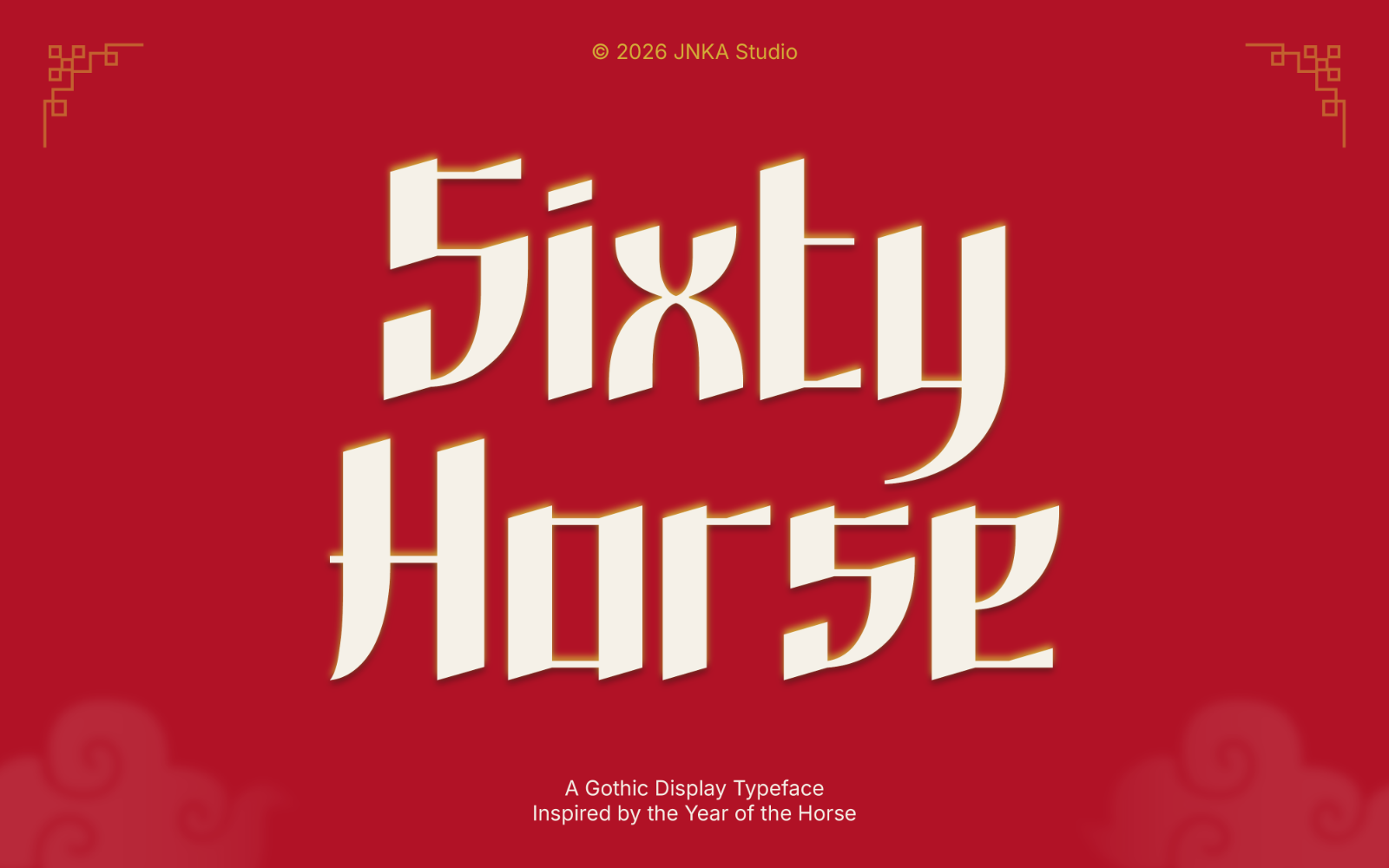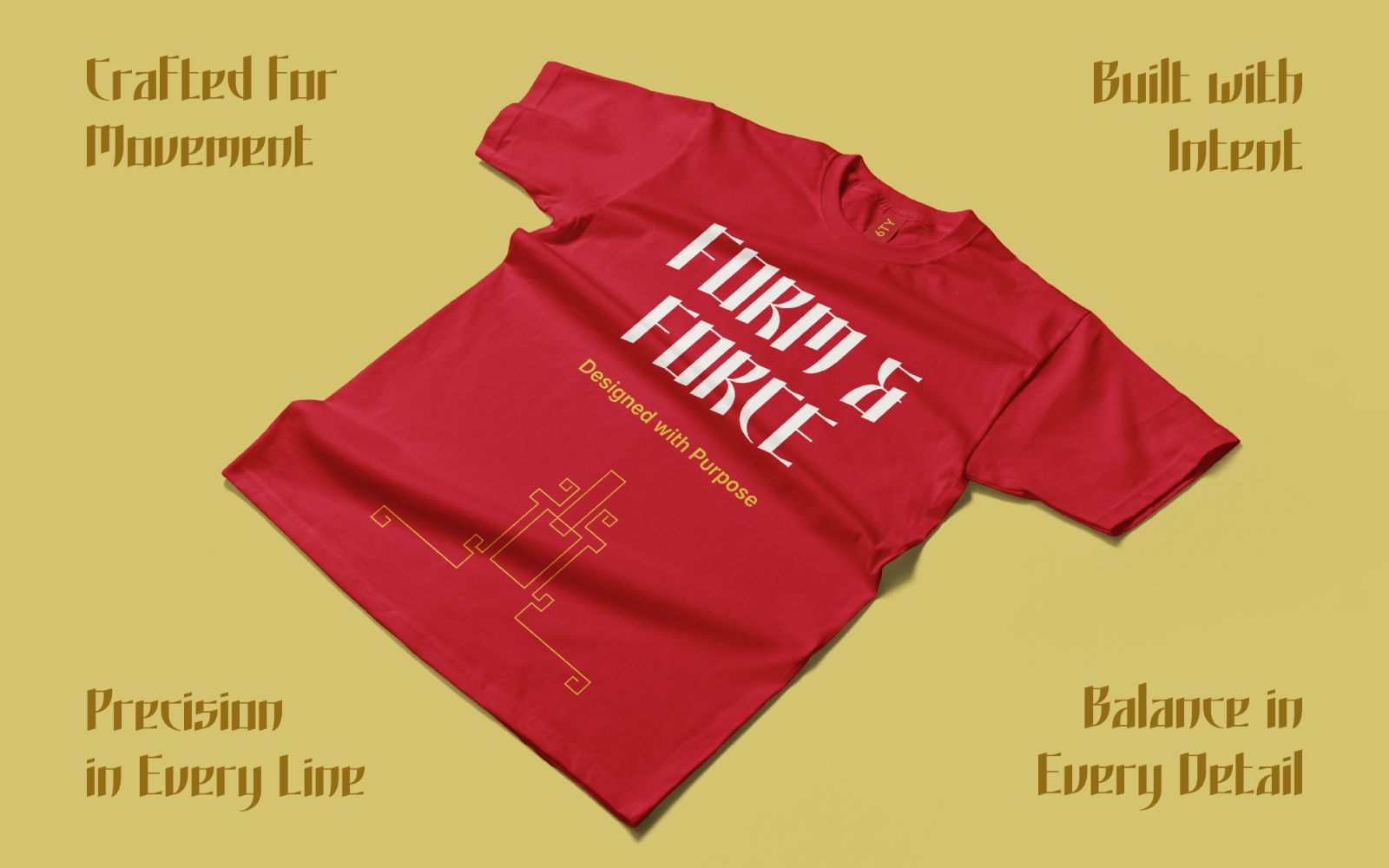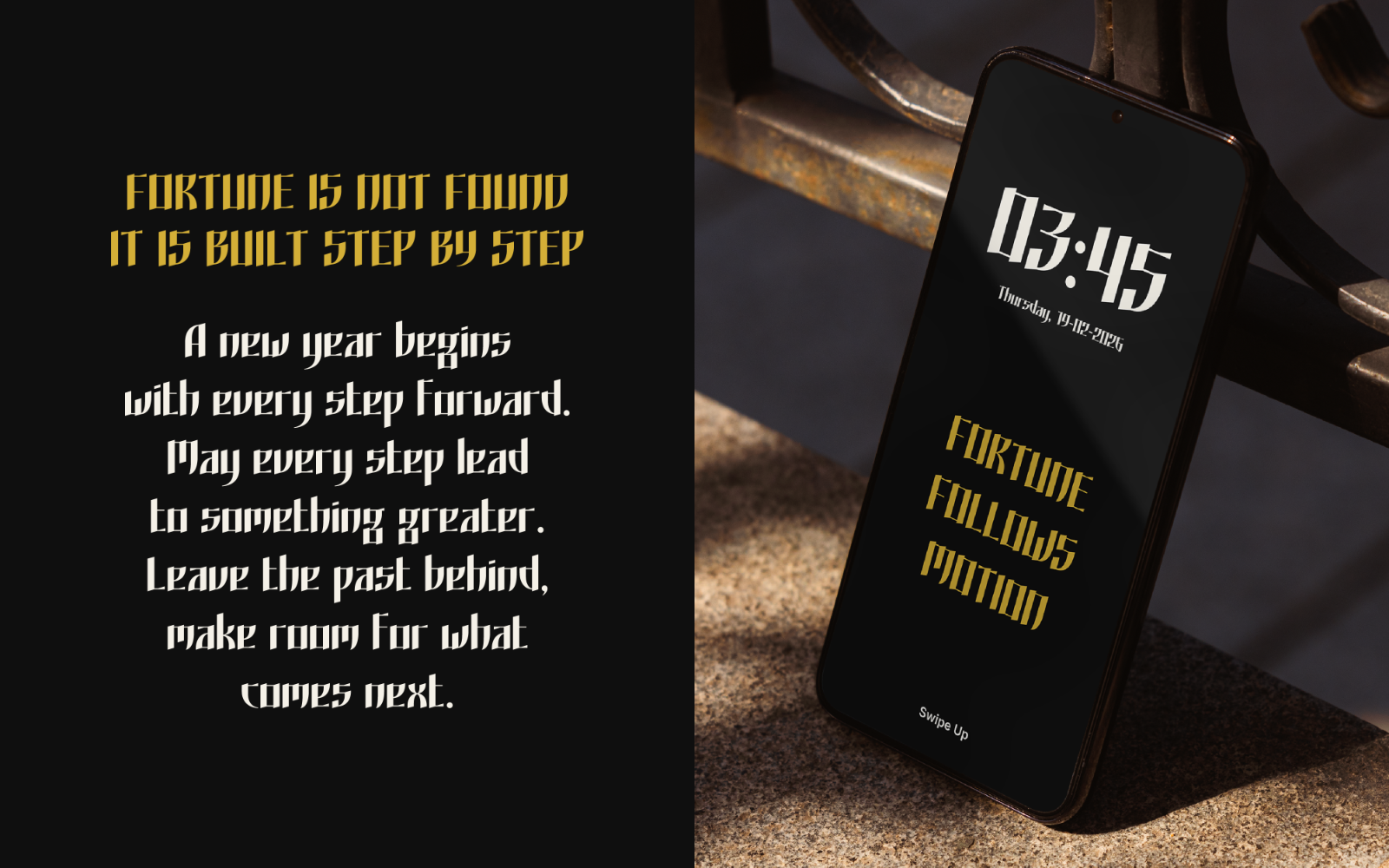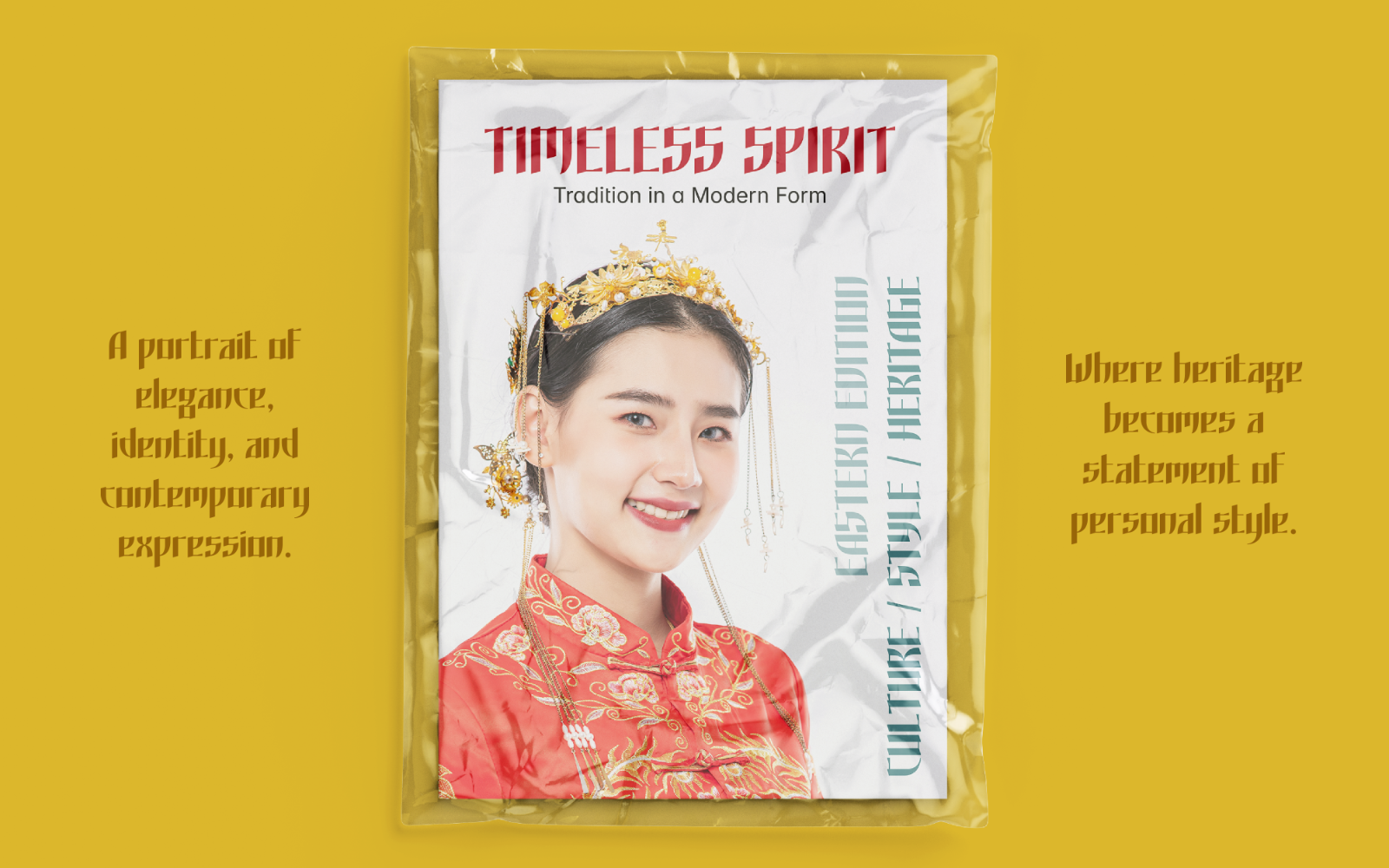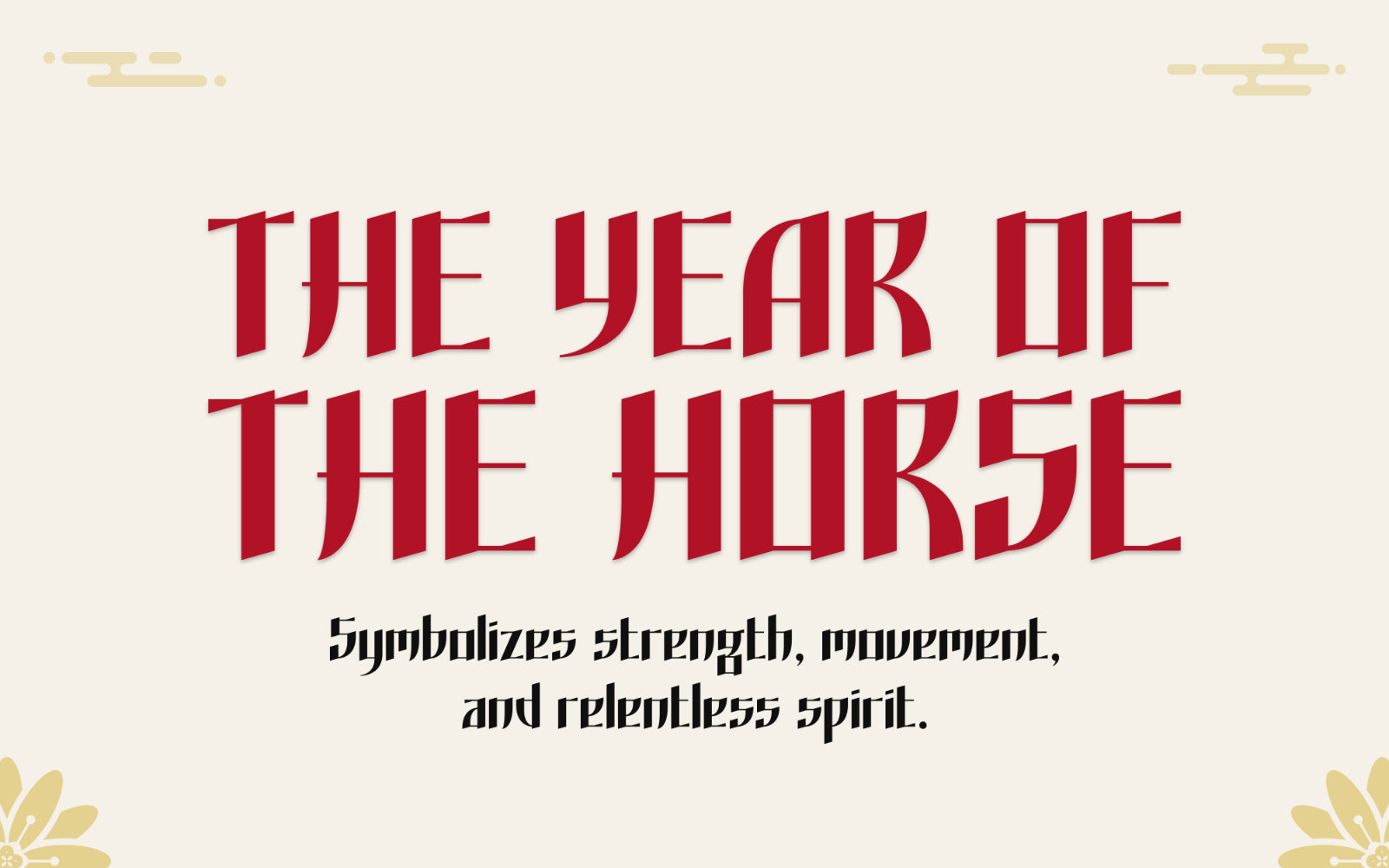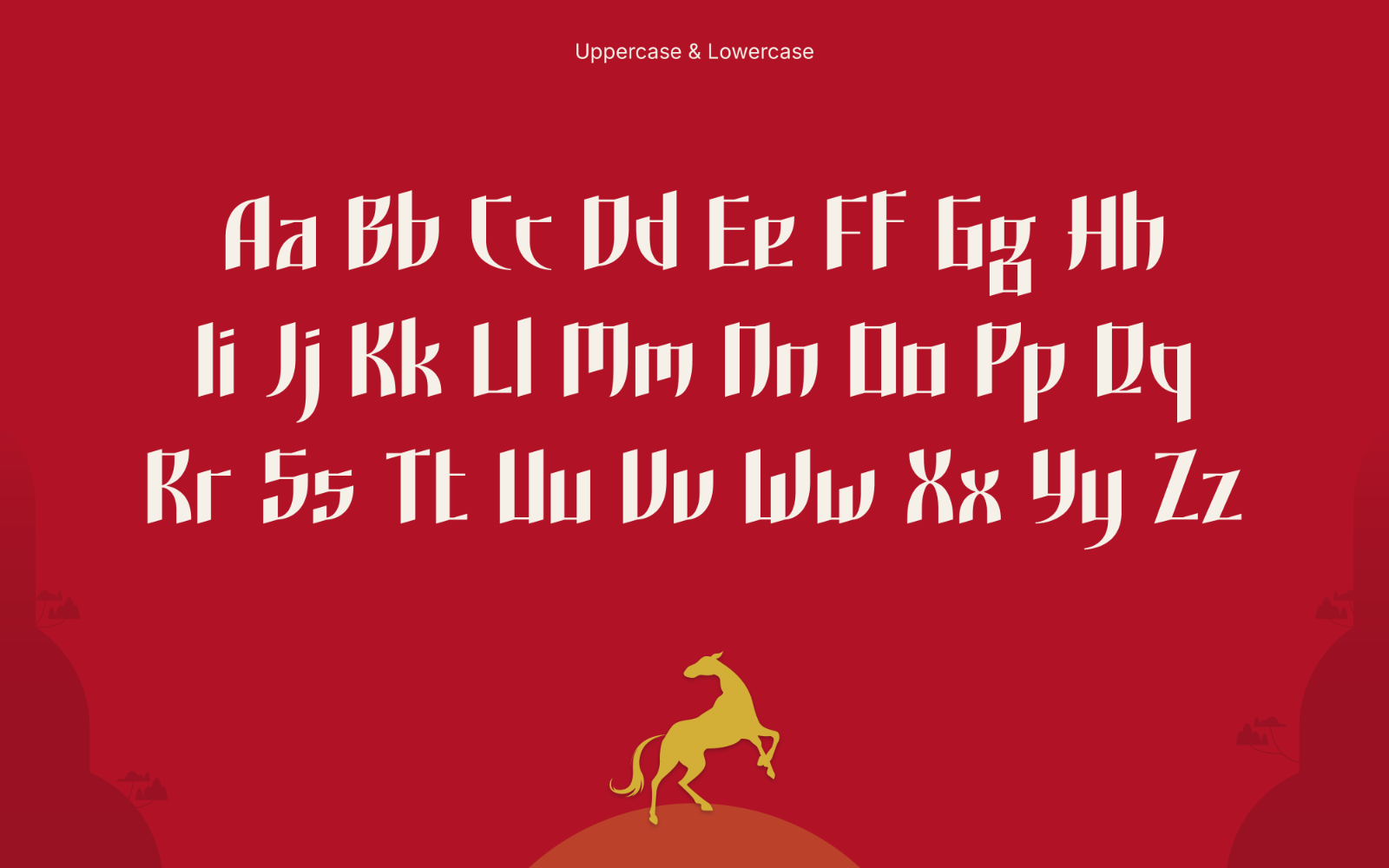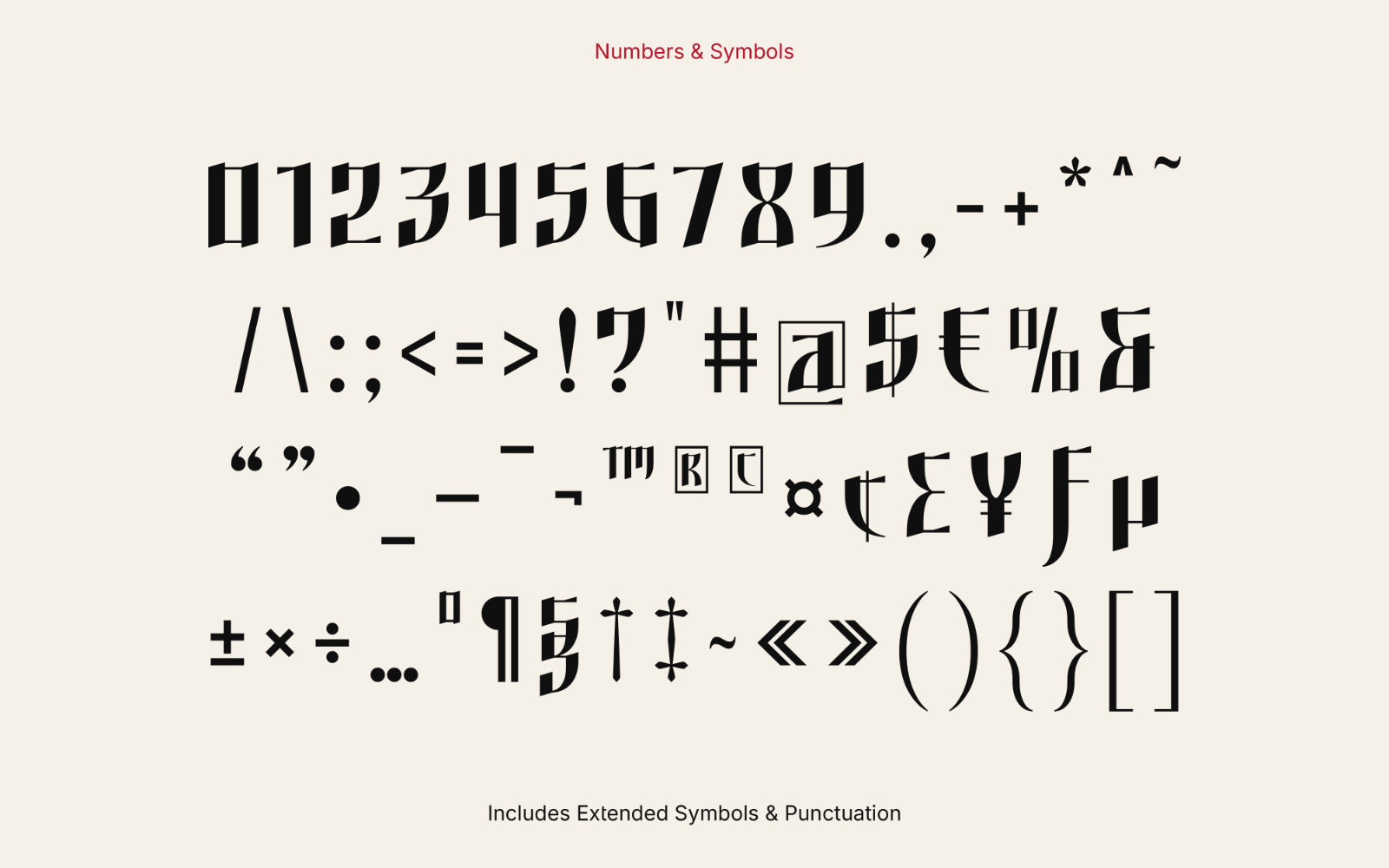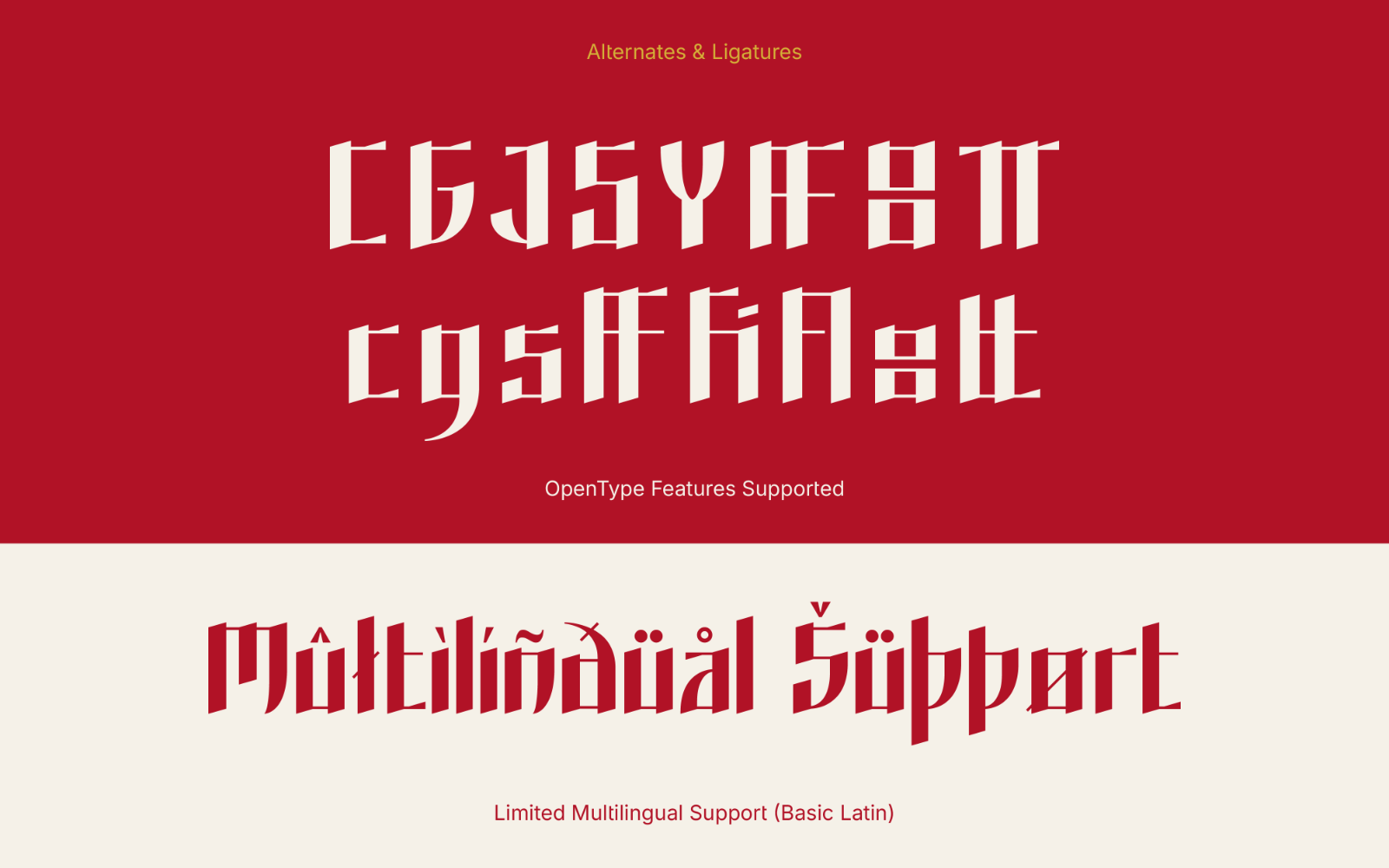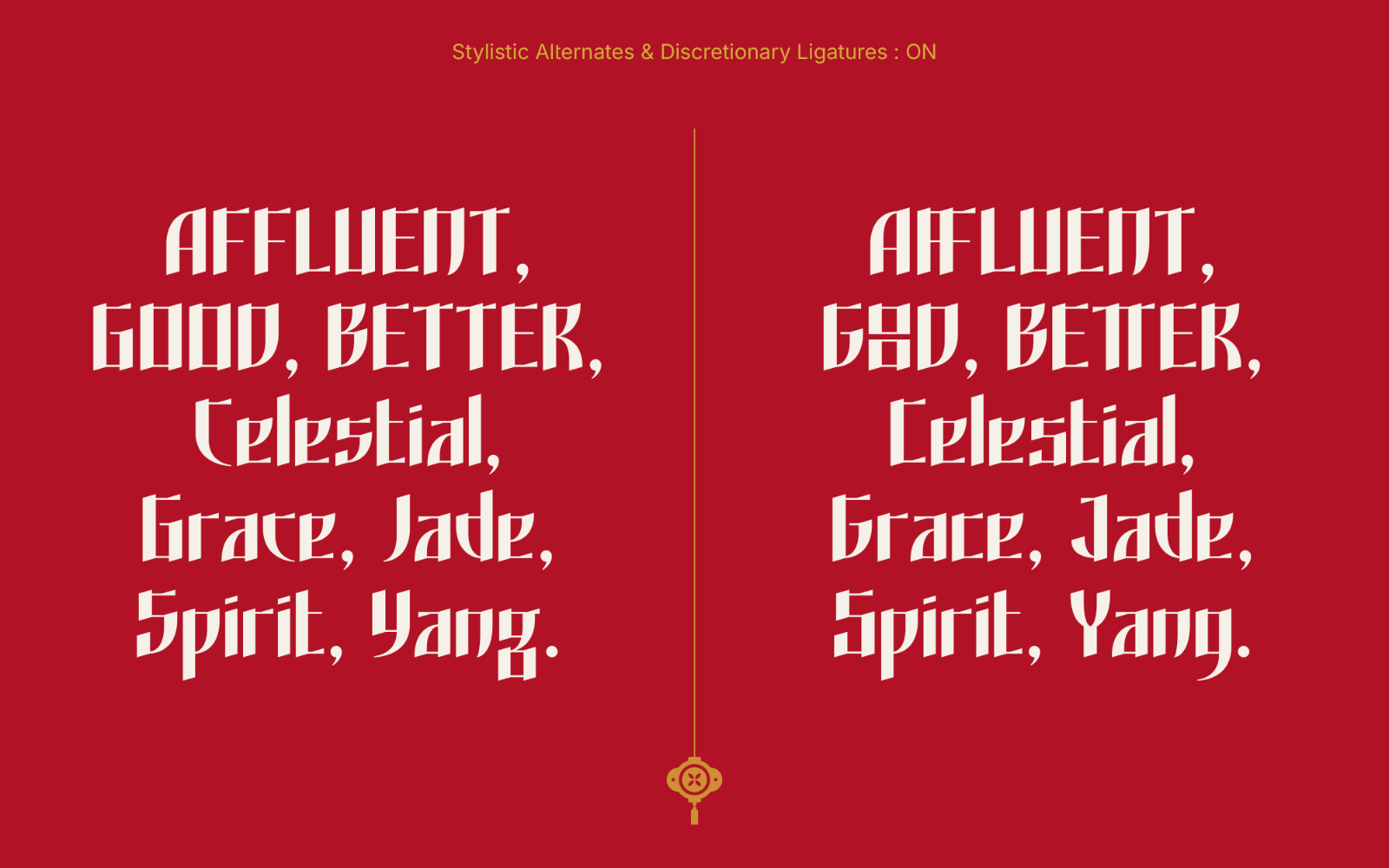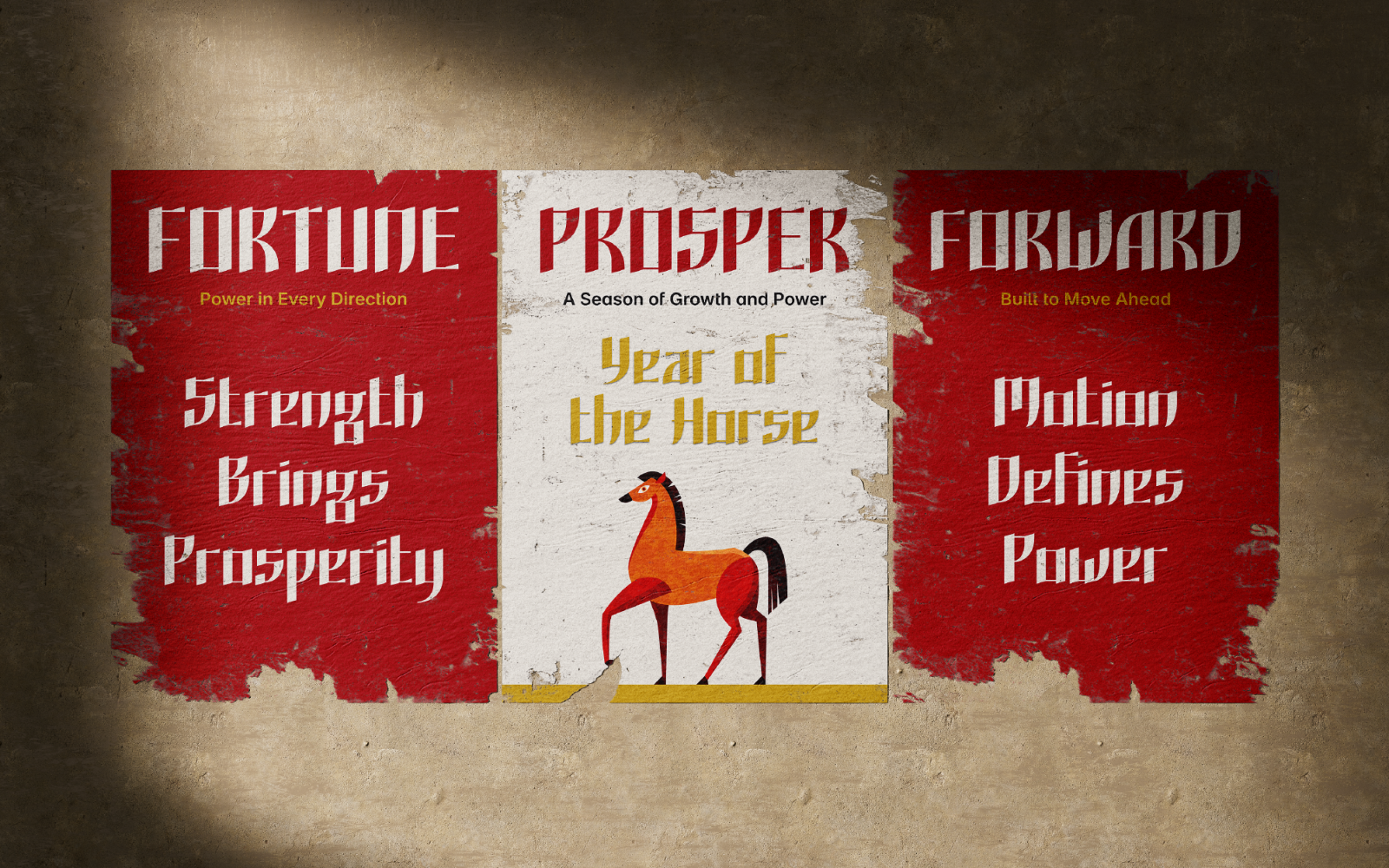
Sixty Horse
Is a gothic display typeface inspired by the spirit of celebration and unstoppable momentum. Built with sharp forms and bold structure, it captures strength, motion, and presence in every letter. Designed to stand out powerful, expressive, and ready to lead the year forward.
Font Features:
- Uppercase & Lowercase Letters
- Numbers & Standard Punctuation
- Symbols & Special Characters
- Basic Multilingual Support (Latin-based)
- Stylistic Alternates
- Standard & Decorative Ligatures
- Fully PUA Encoded Characters
- Carefully Adjusted Kerning
- Approx. 246 Glyphs
- OpenType Features